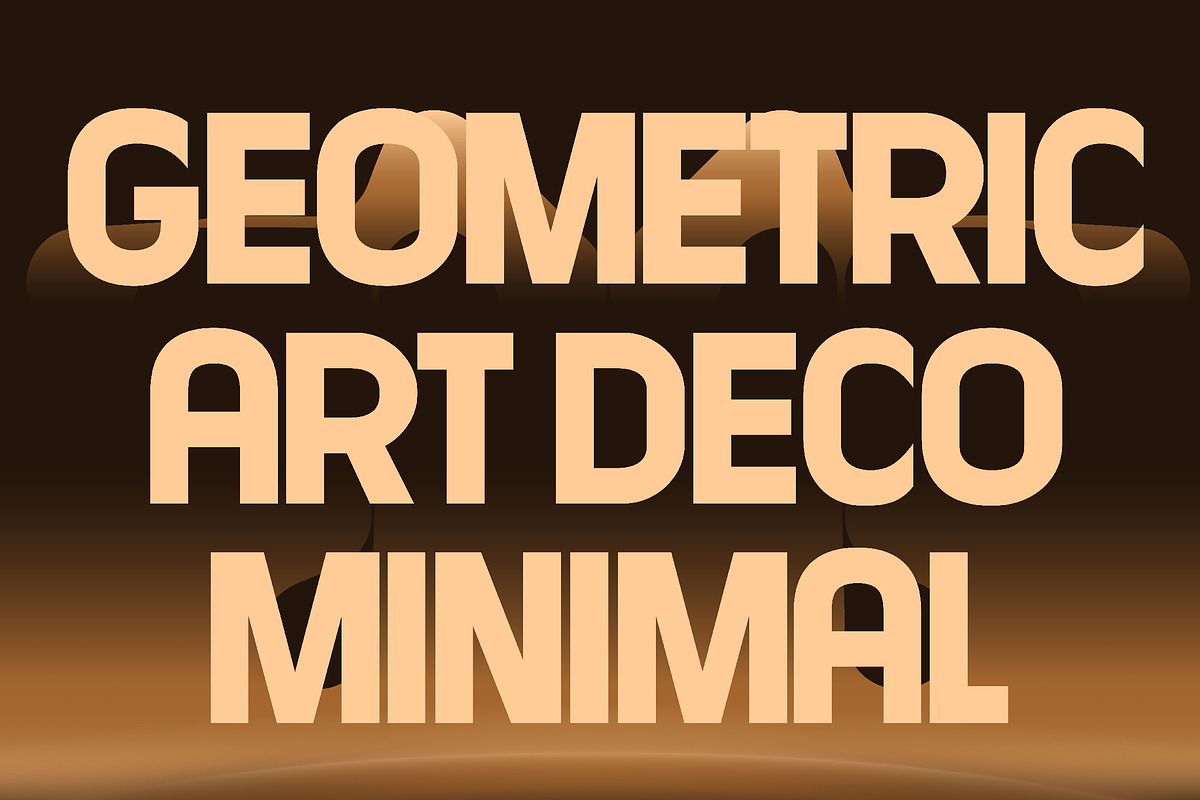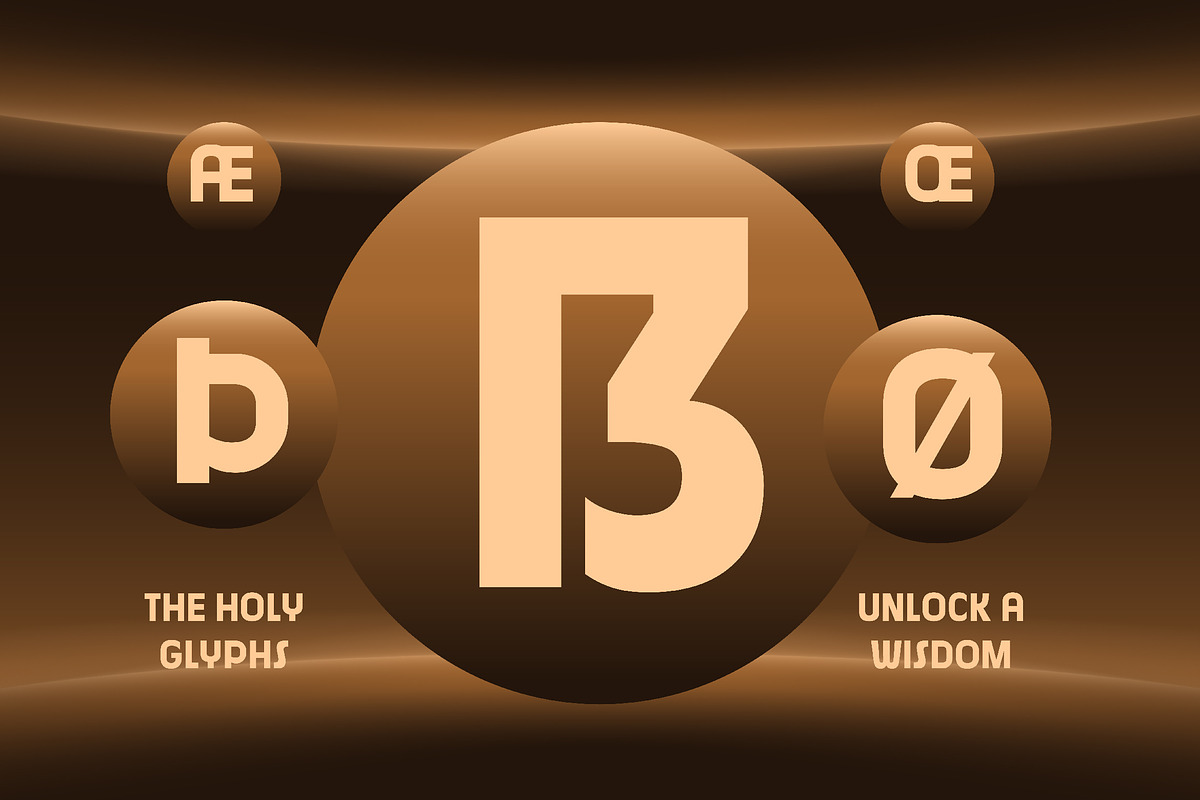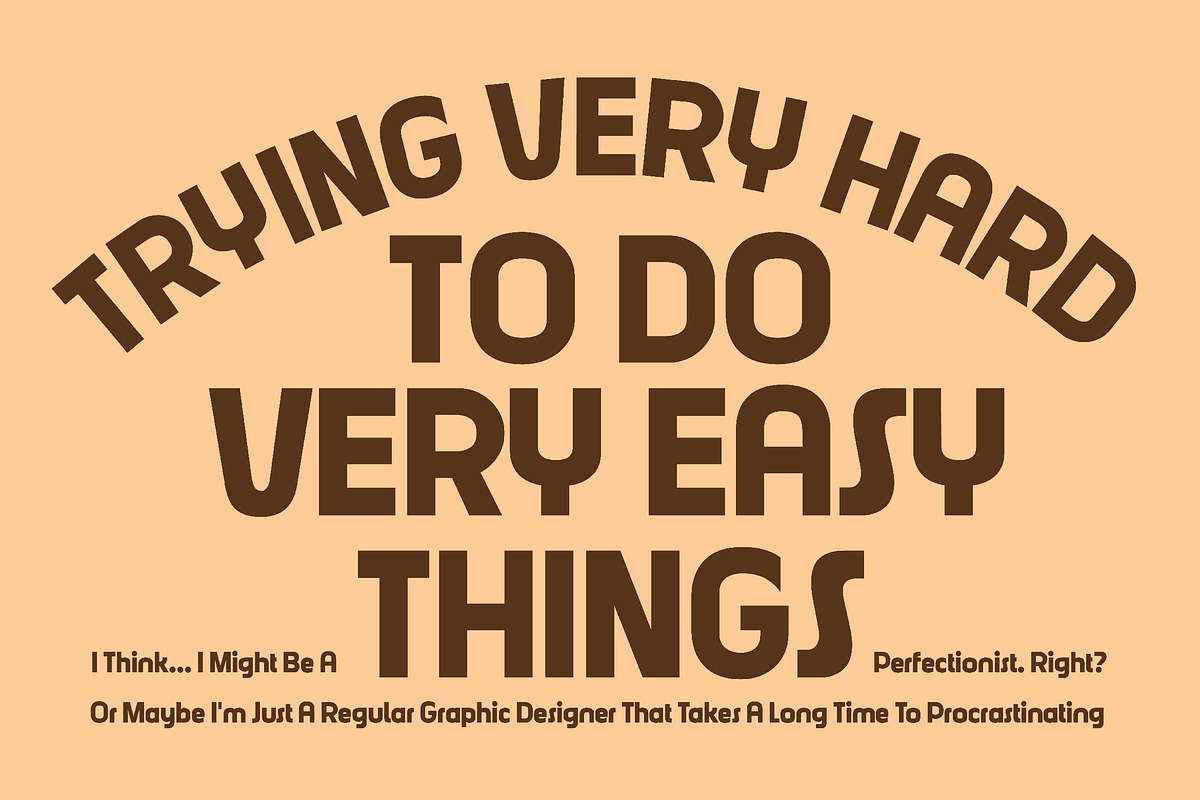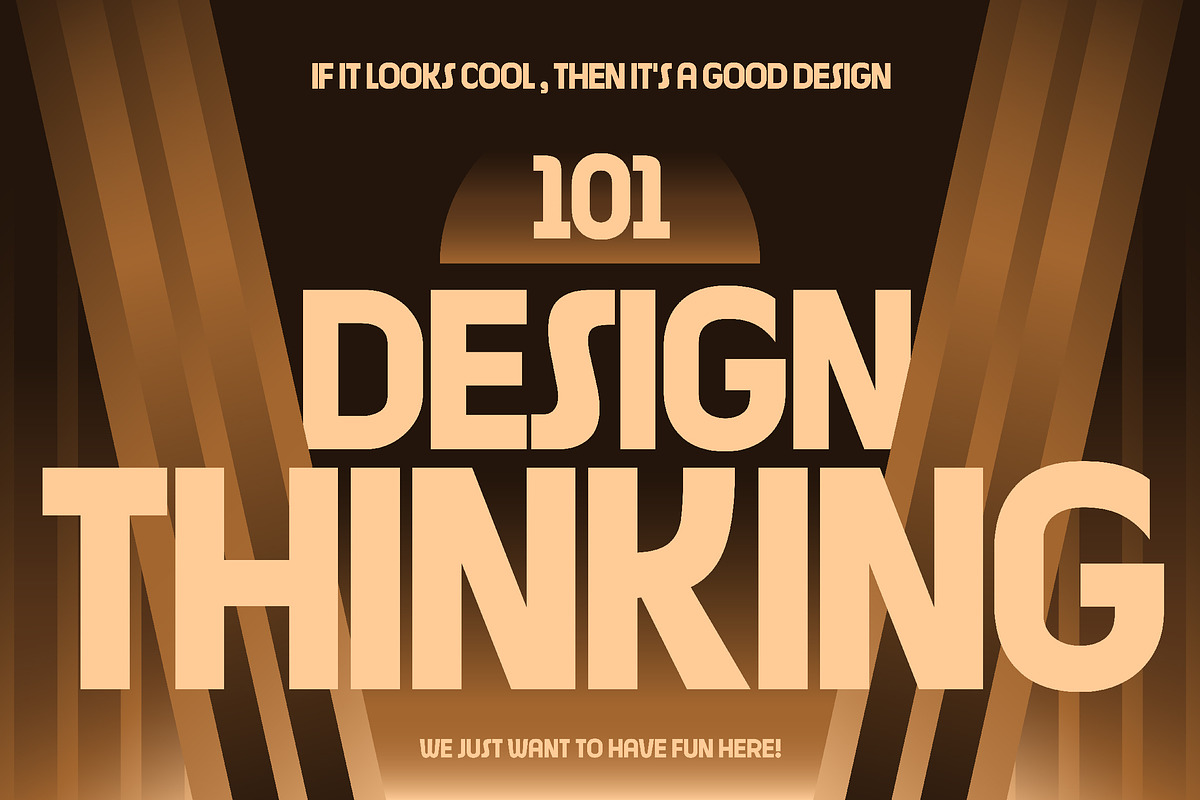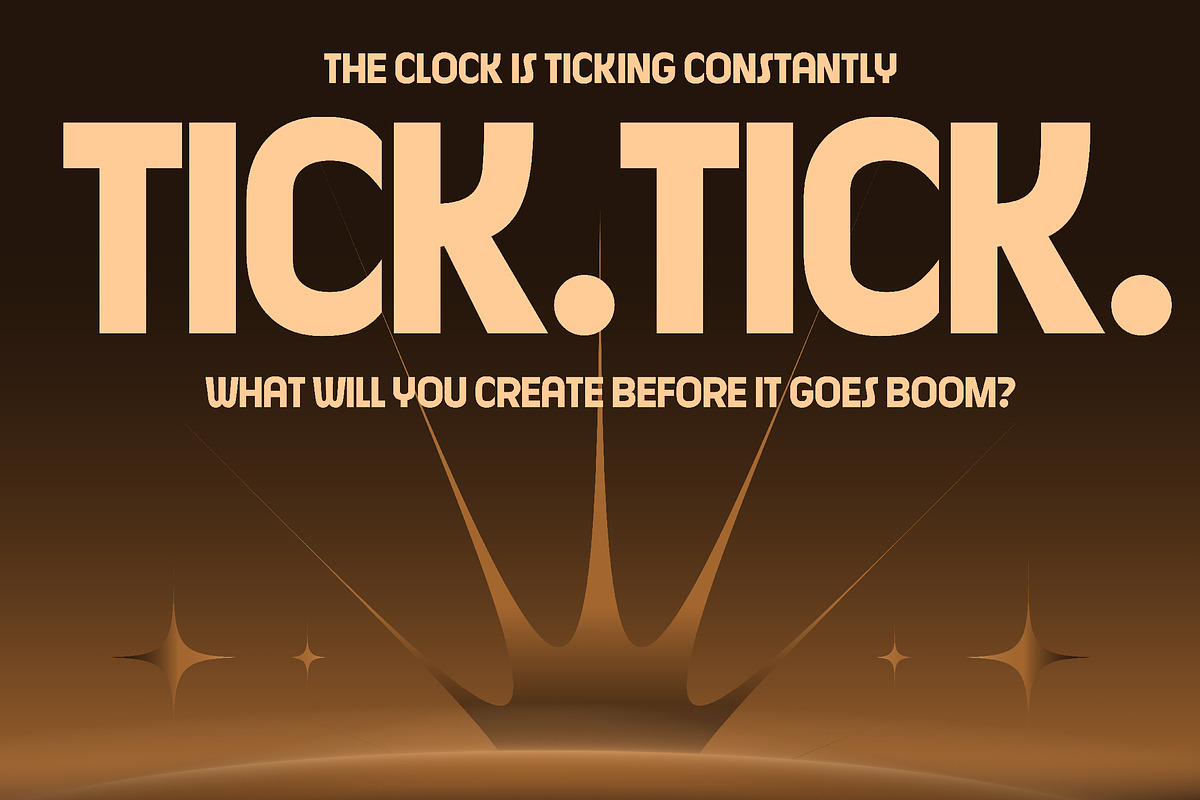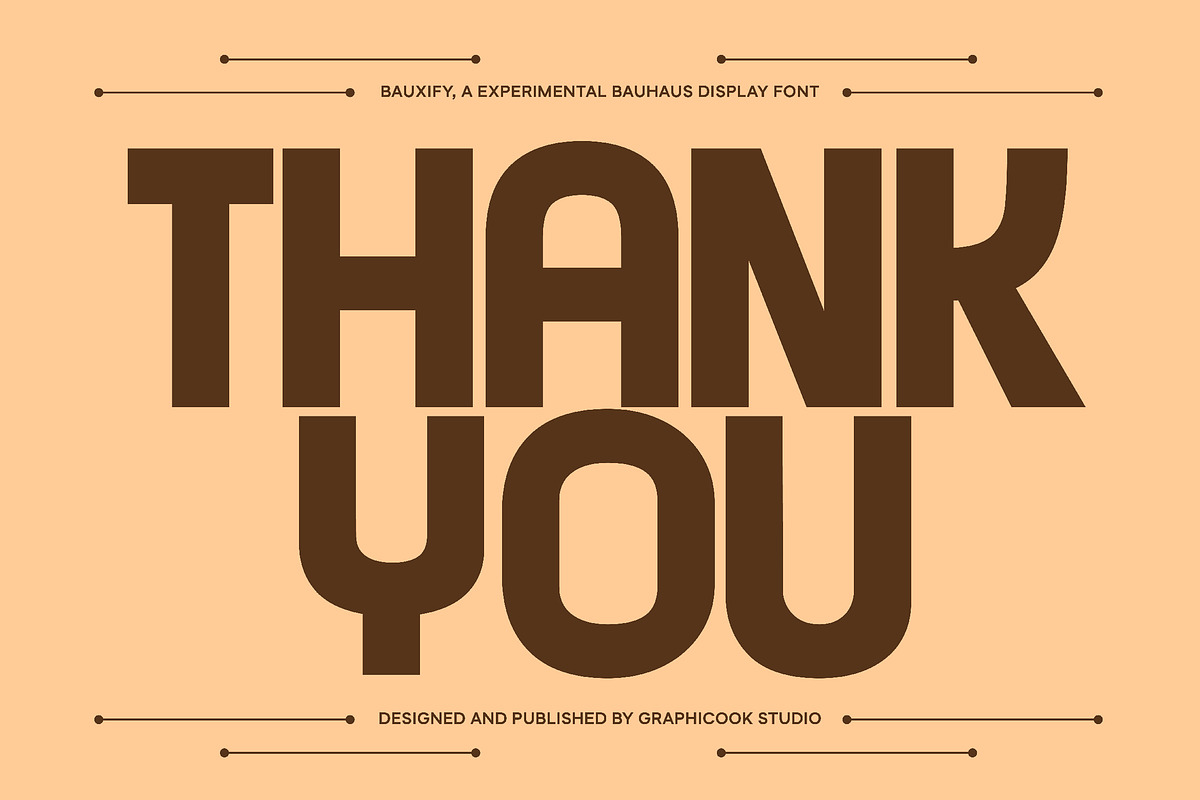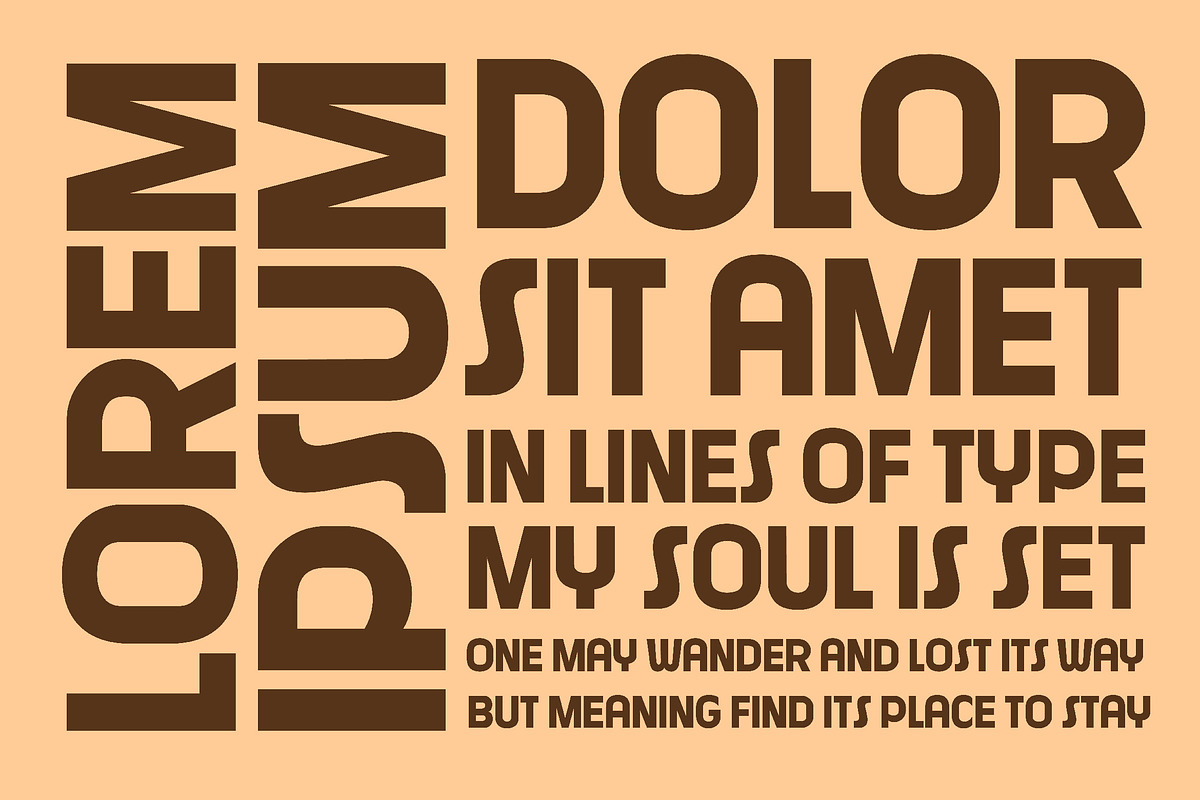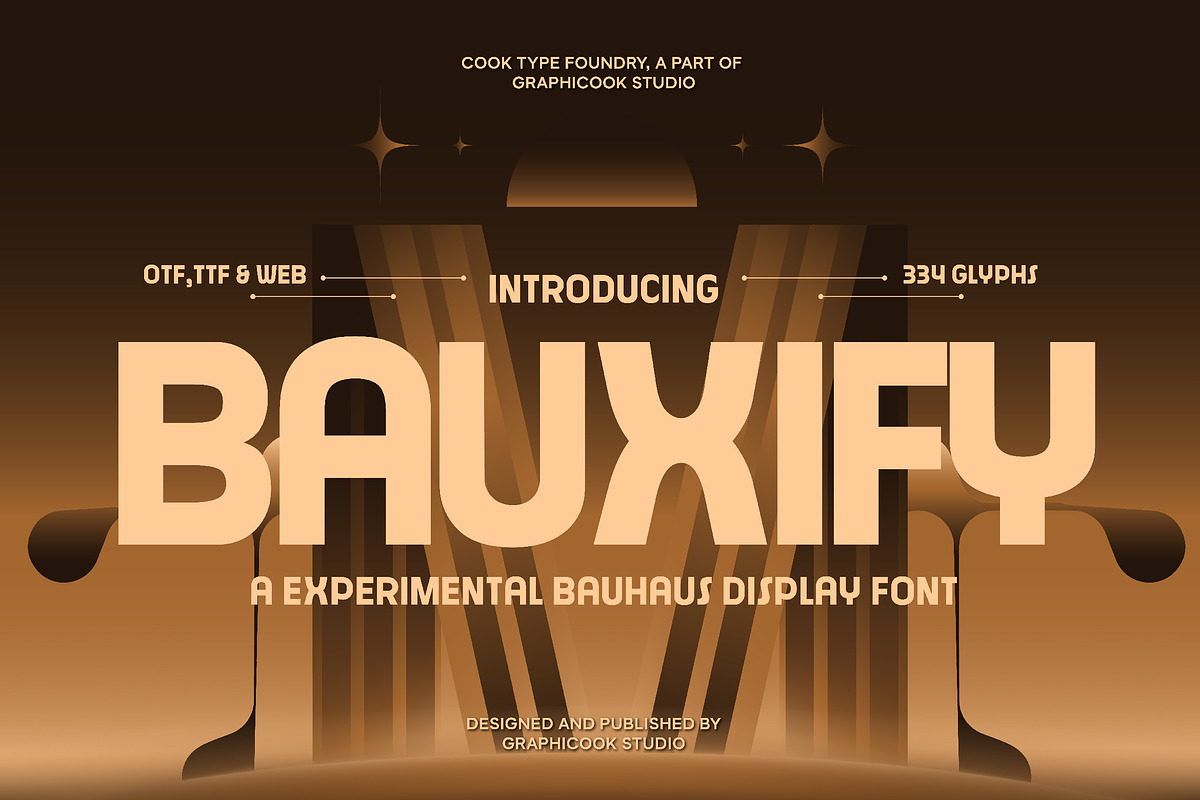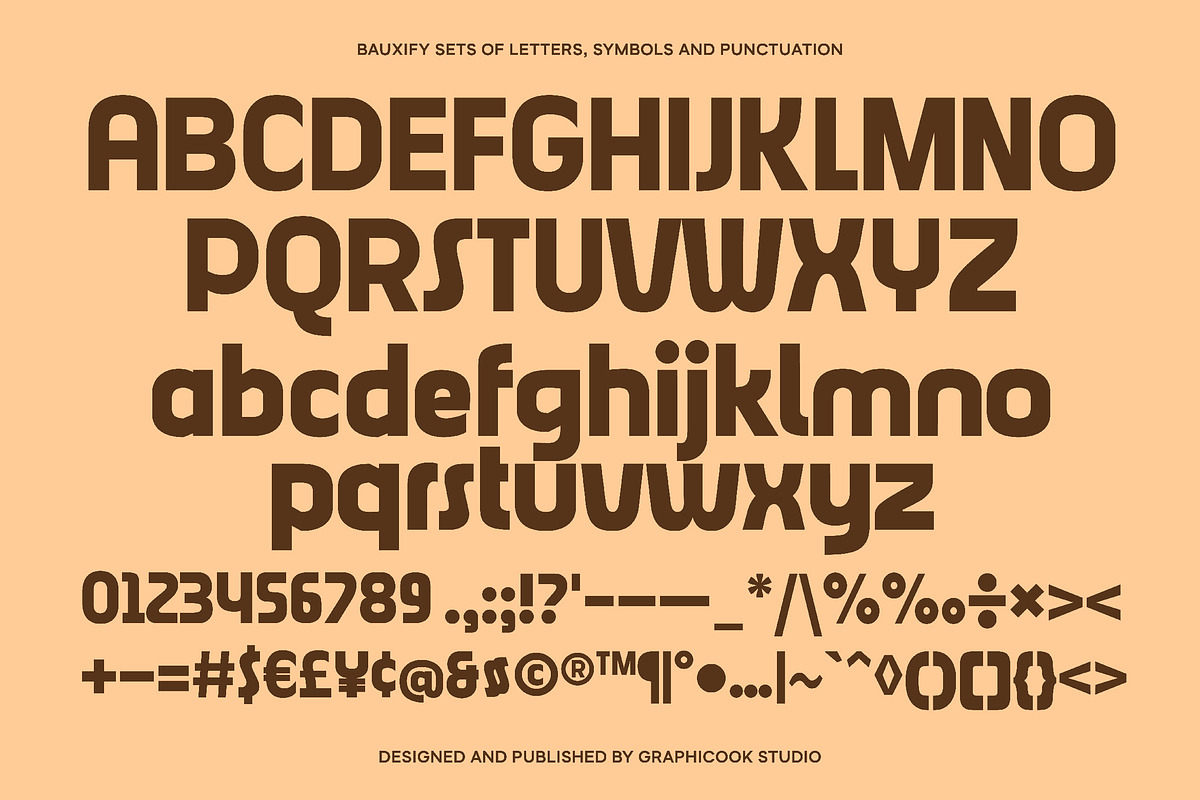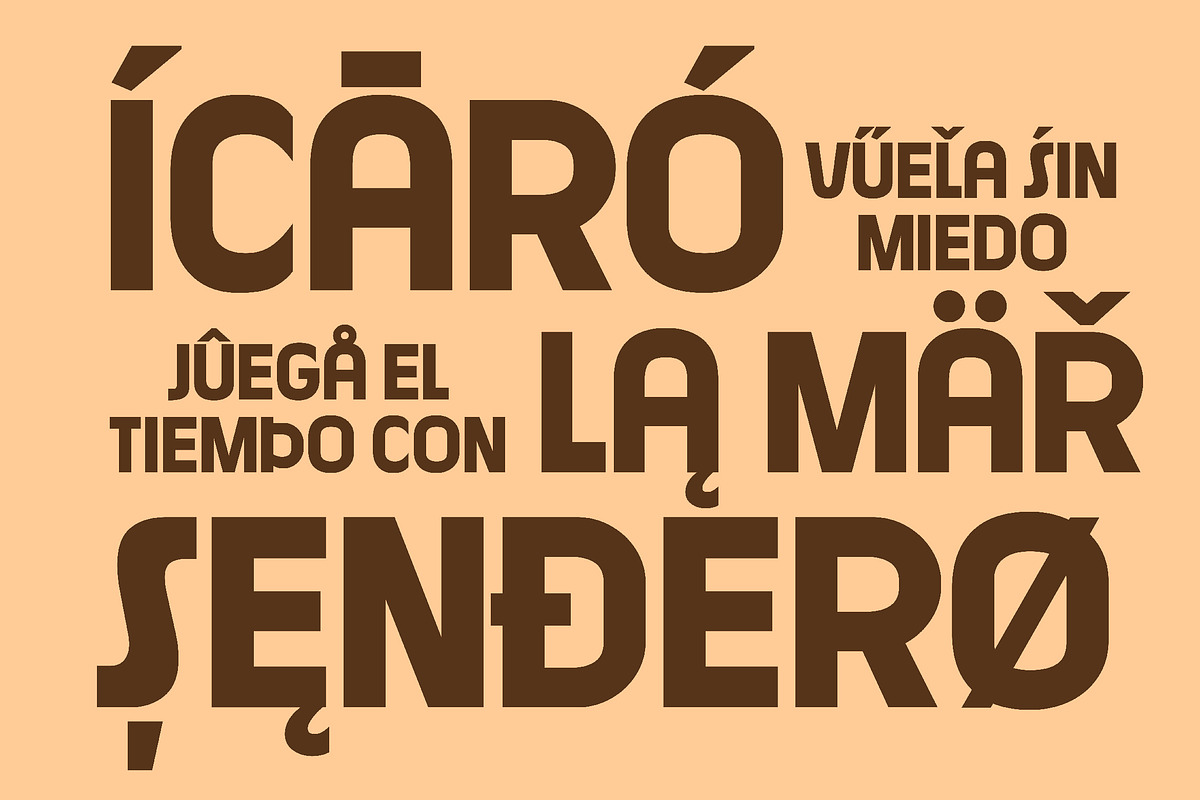
Bauxify
Bauxify is a geometric sans-serif font with an Art Deco style. With its bold and elegant character, it's ideal for designs that want to evoke a luxurious and modern feel.
Bauxify is perfect for headlines, logotypes, magazines, packaging, quotes, movies, games, cover albums, book covers, and flyers, it's a perfect solution for creating eye-catching designs that stand out in any context.